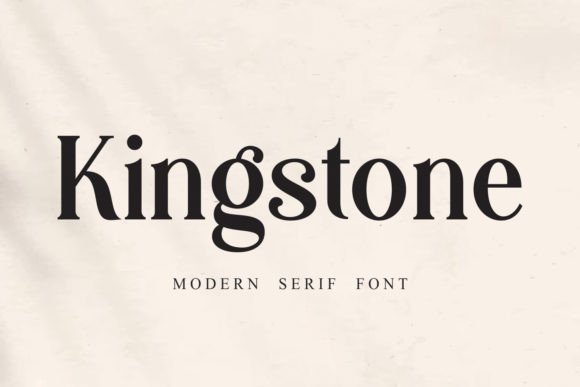
Introducing the majestic "Kingstone Serif Fonts," a typeface that exudes power, elegance, and timeless appeal. With its commanding presence and exquisite details, this font is designed to make a bold statement in your designs. Let the "Kingstone Serif Fonts" reign over your projects and elevate them to new heights of sophistication.
Crafted by Unitype, this font family is the epitome of excellence, offering the best font for a business book. Its sturdy serifs and balanced letterforms exude a sense of authority, making it ideal for prestigious branding, editorial designs, and luxury packaging. Each character is meticulously crafted to convey a sense of grandeur and refinement.
Impress your audience and captivate their attention with the regal allure of "Kingstone Serif Fonts." This font is more than just a collection of letters; it's a storytelling tool that adds depth and emotion to your designs. From its elegant curves to its commanding presence, every detail is designed to leave a lasting impression.
Whether you're designing logos, headlines, or promotional materials, this font will command attention and leave a lasting impression. Its versatility knows no bounds, as it seamlessly adapts to various design styles and purposes. From classic and traditional to modern and sleek, "Kingstone Serif Fonts" effortlessly complements any visual concept.
Experience the power and grace of "Kingstone Serif Fonts" today. Elevate your designs to royalty and seize the attention of your audience. Transform ordinary text into extraordinary art that demands attention and admiration. With this font, your designs will exude a sense of professionalism, elegance, and sophistication.